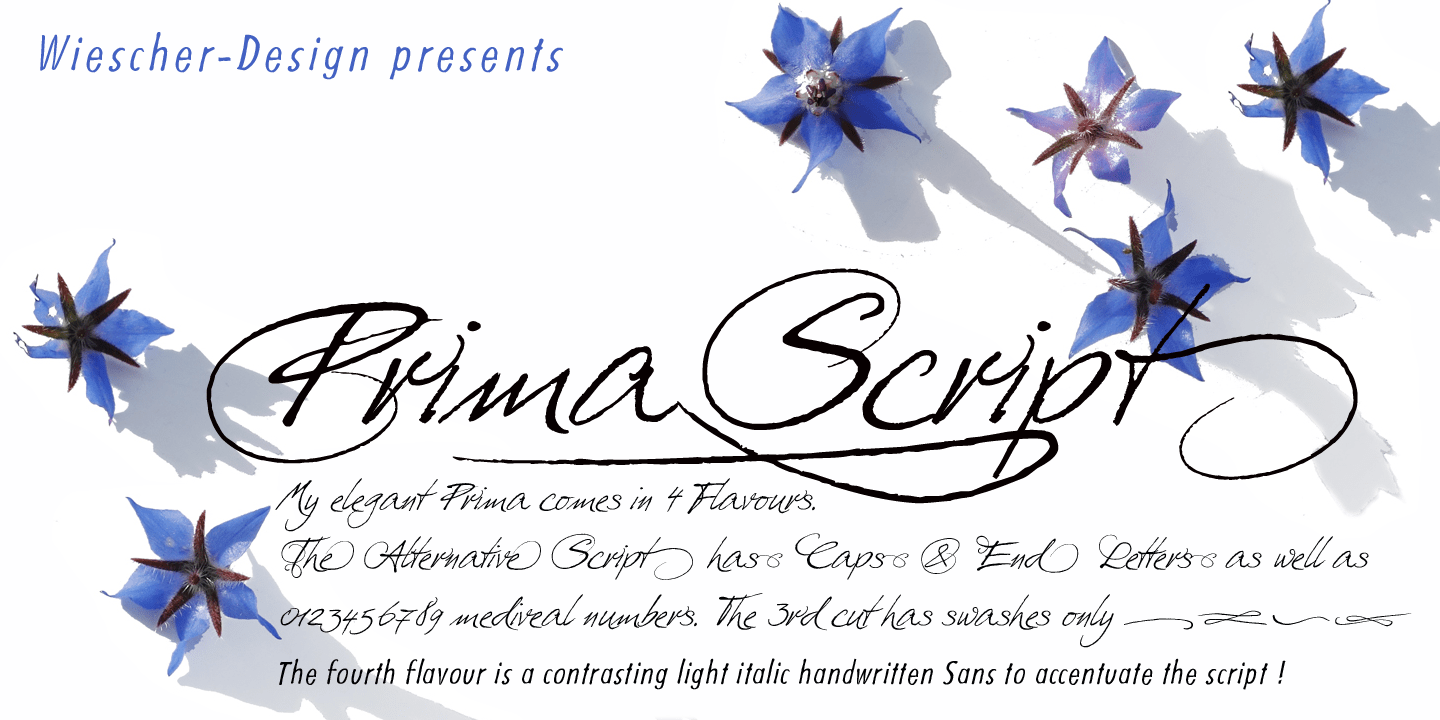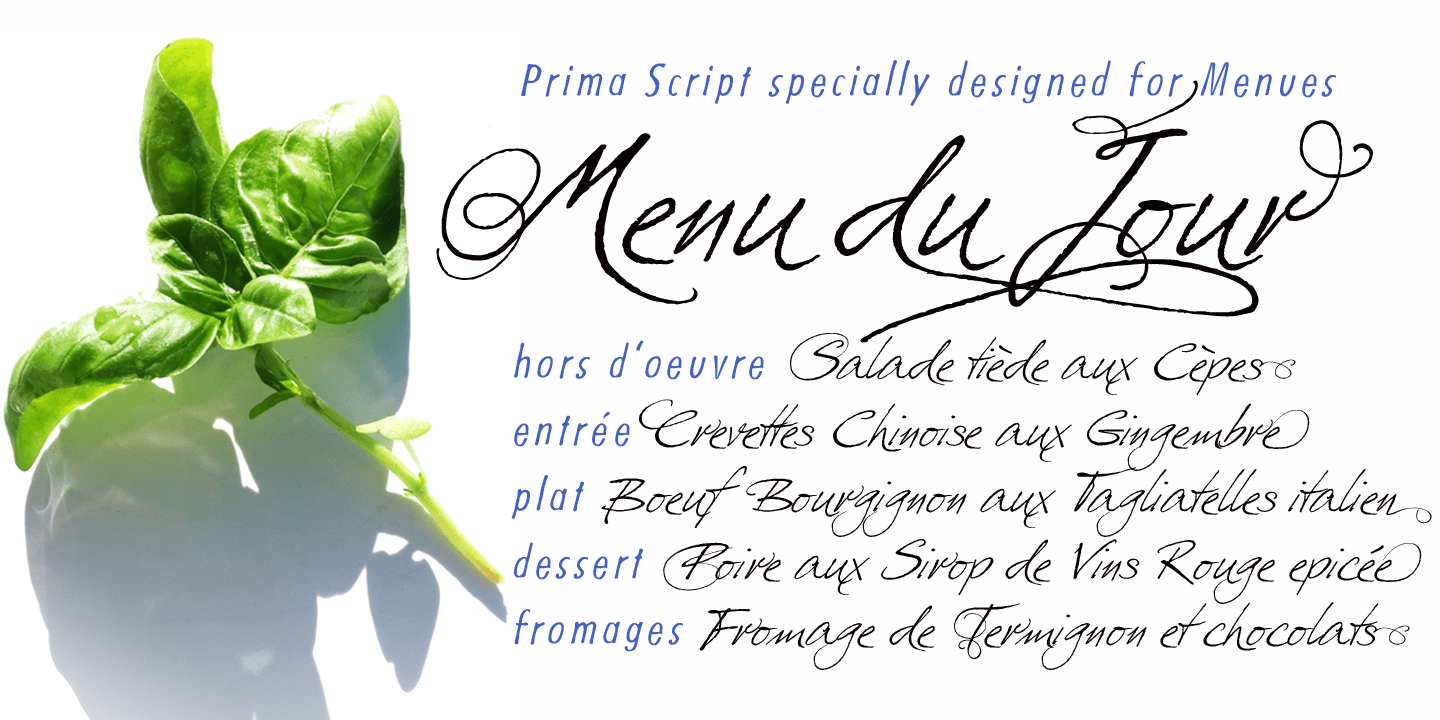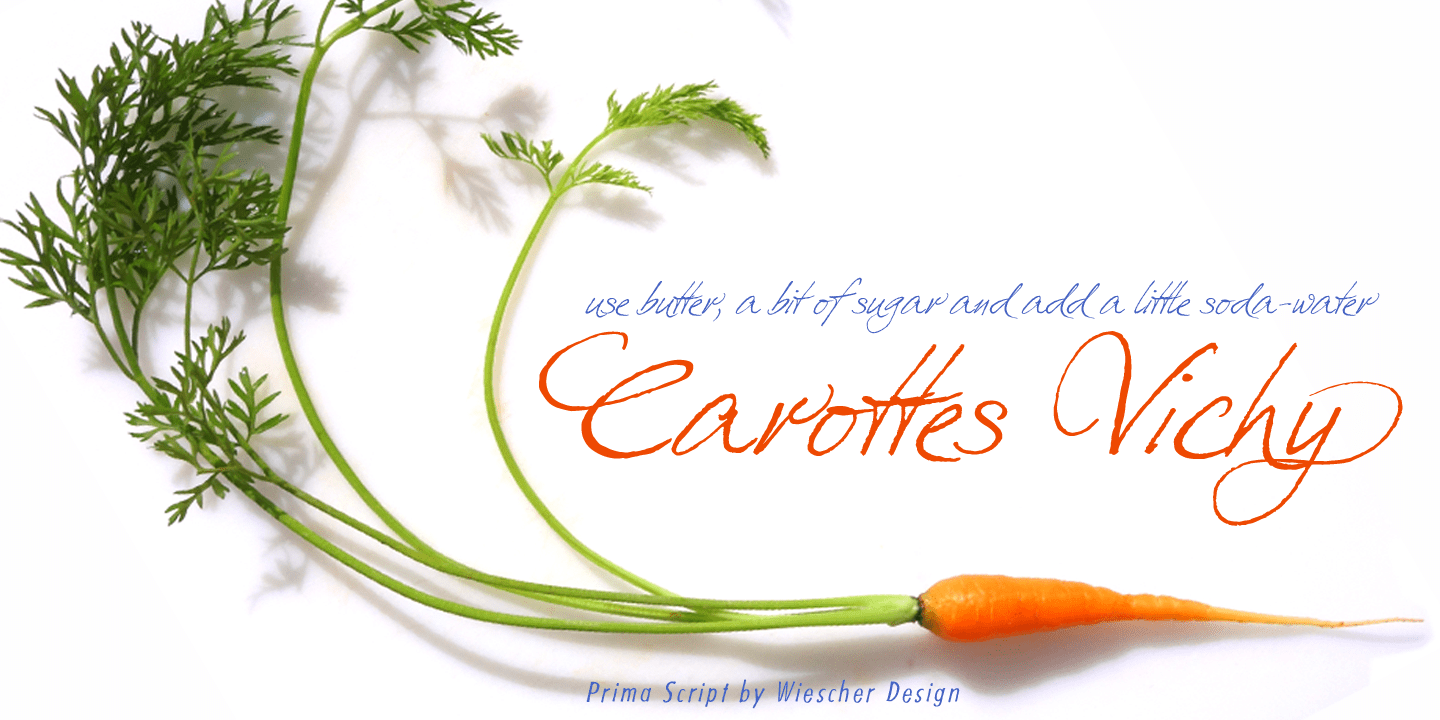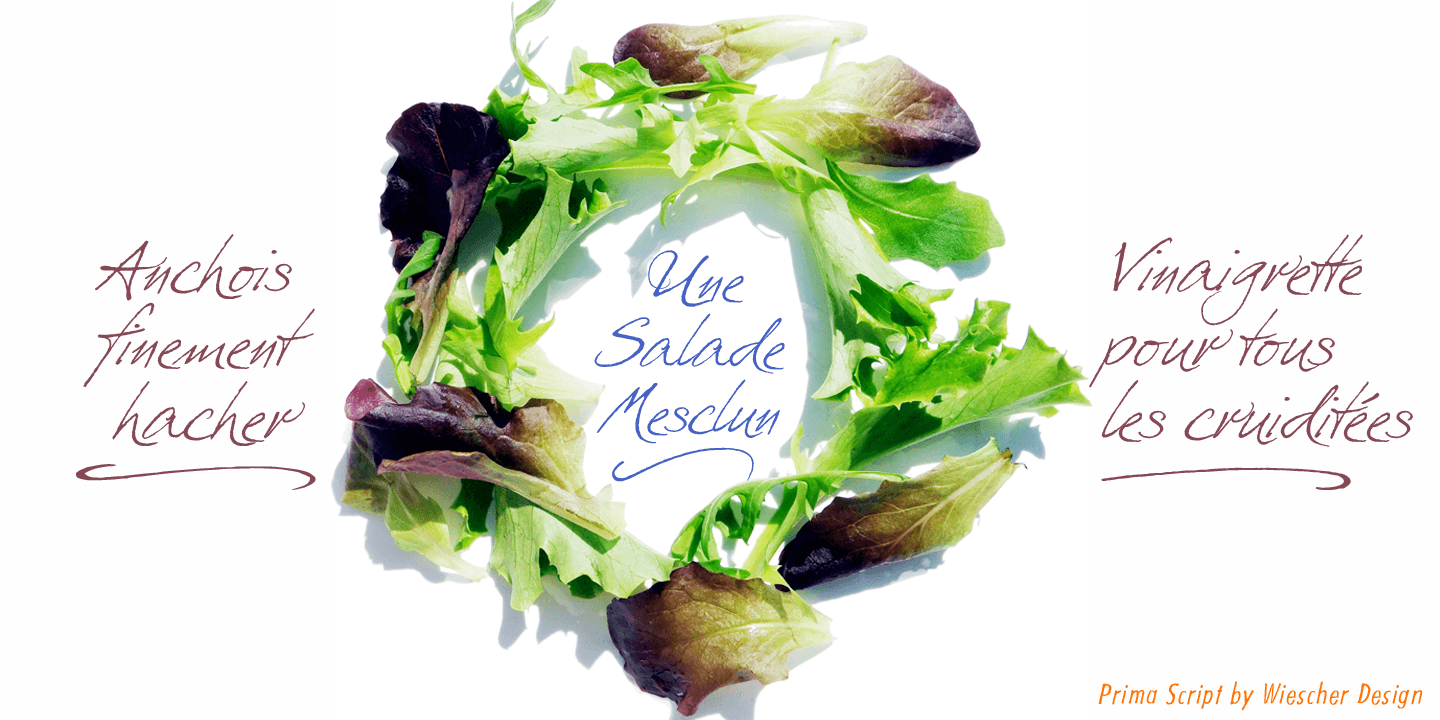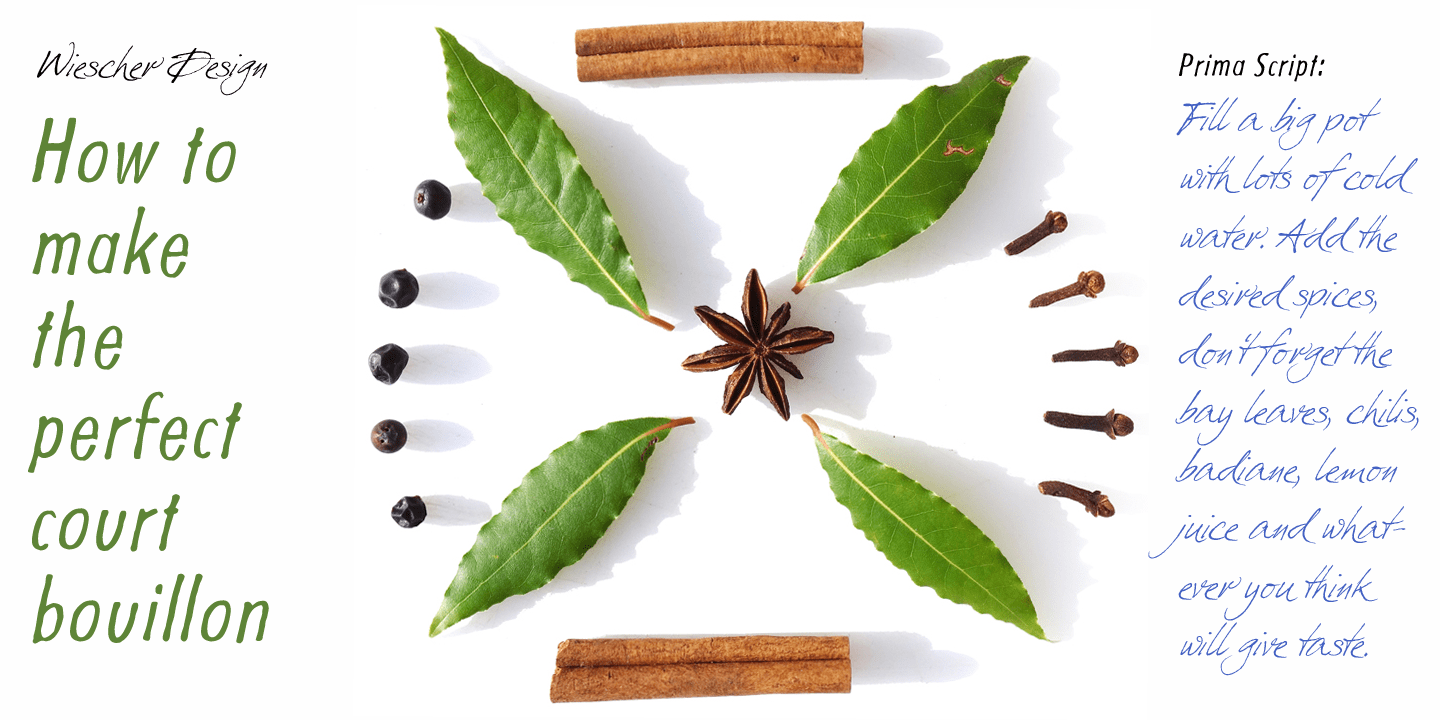
Prima Script
Font Family by Wiescher Design
Prima Script was designed especially for use in Menus and Cook-books. One of my sons is a chef in Munich and he was always bugging me to make a new font for his menus. I already designed one for him Konstantin but he likes to have new stuff every couple of years what I understood. So here is the new Prima Script (that's what he said when he first saw the font). To give it more usability I made alternate initials and end letters as well as medieval cyphers. Then I did a couple of swashes and a handdrawn Sans font to ceomplete the set. Have fun!